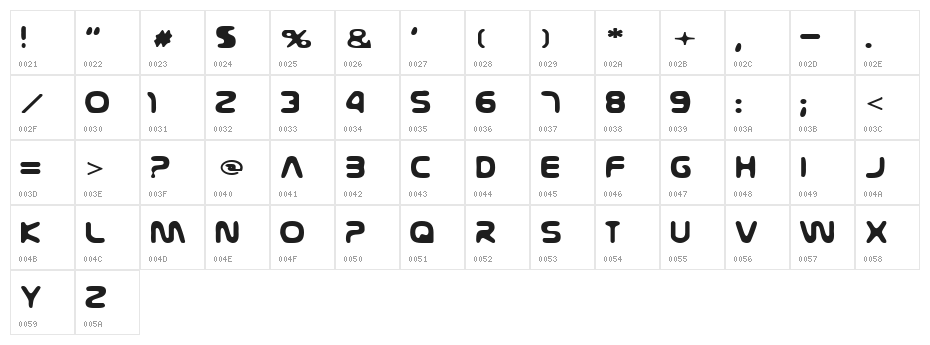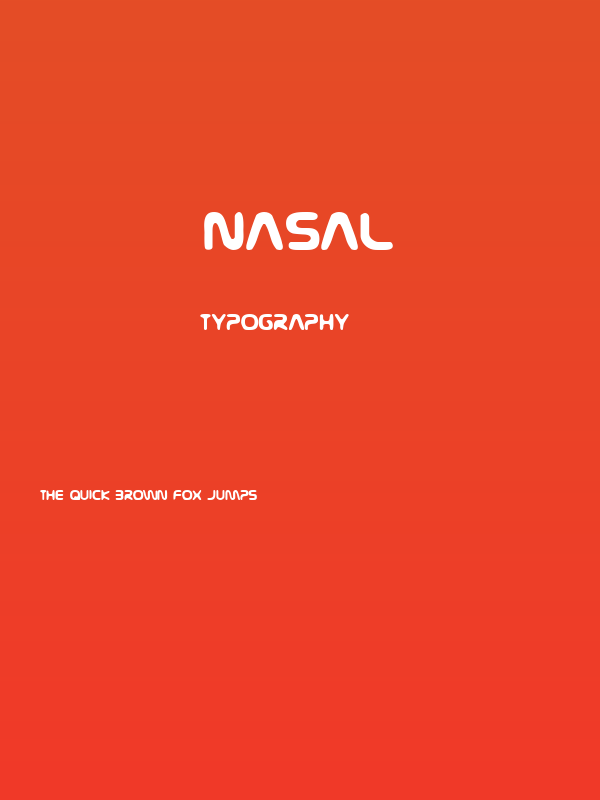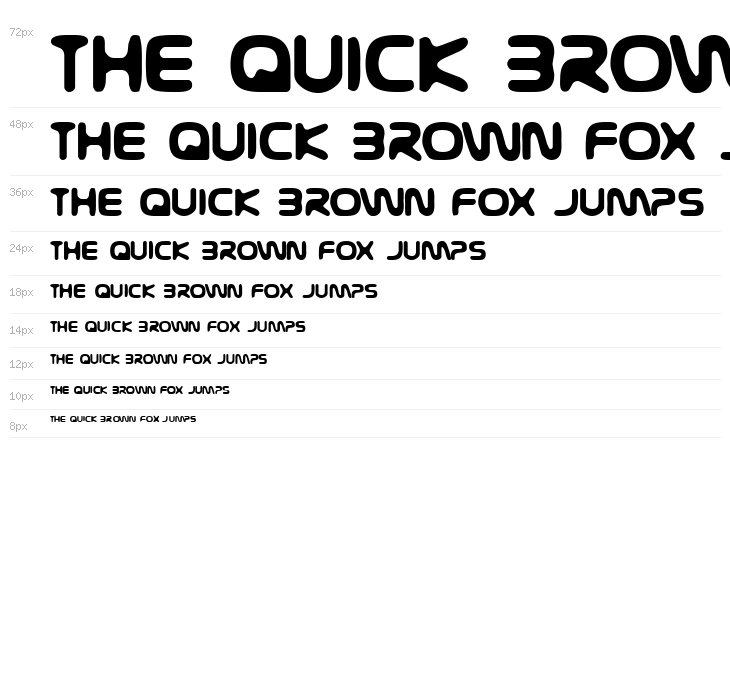
Nasal Font
Nasal Description
This font features a bold, rounded design with a futuristic and playful aesthetic. The characters are uniformly thick, giving them a strong presence on the page. The rounded edges and smooth curves create a friendly and approachable look, while the consistent stroke width adds to its modern appeal. The font maintains a uniform height across both uppercase and lowercase letters, contributing to its cohesive appearance. The numerals and special characters are designed to match the overall style, ensuring a harmonious look throughout. This font is ideal for projects that require a bold and contemporary feel.
| Proposed Projects | Ideal for branding, posters, video game graphics, and modern advertising campaigns. |